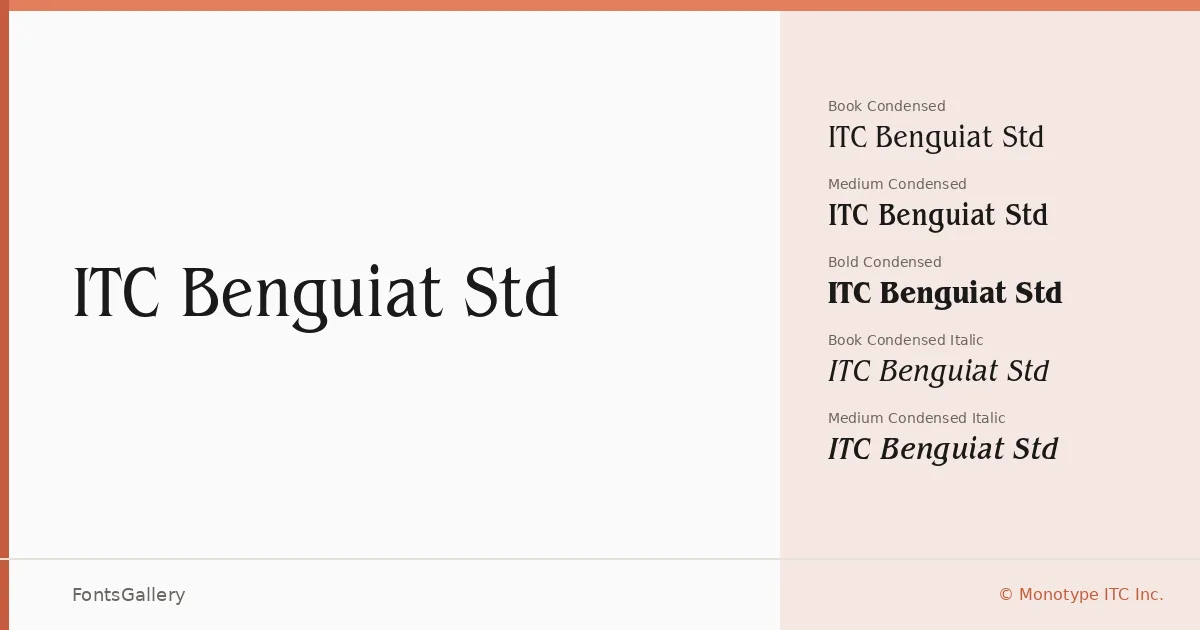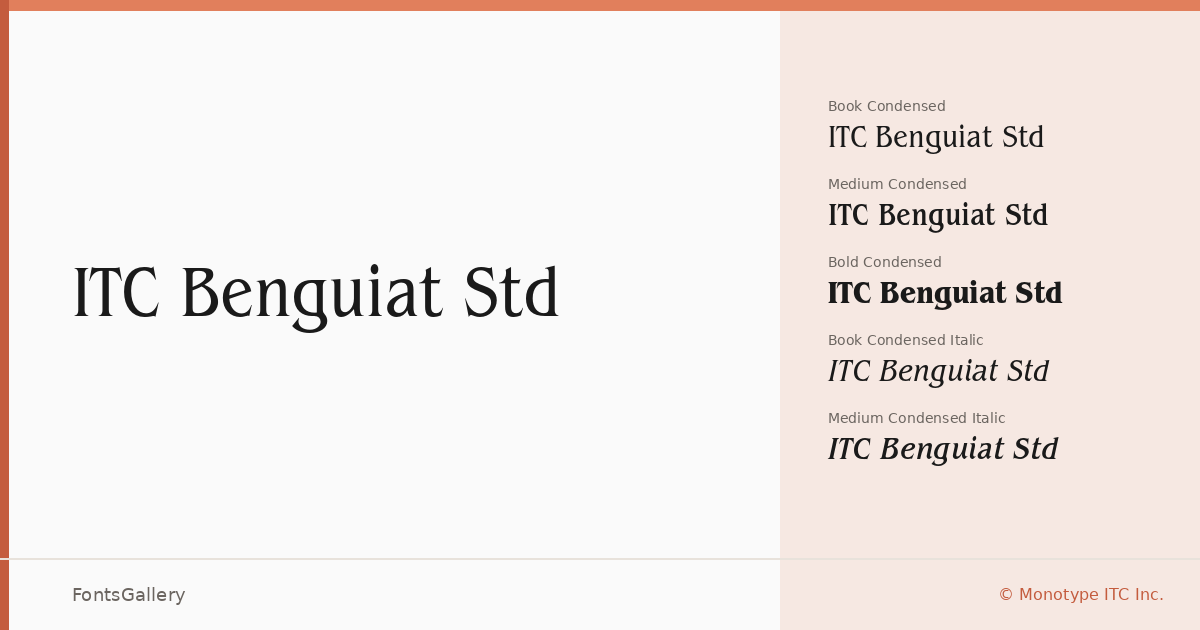
About ITC Benguiat Std Font
There is something unmistakably theatrical about the capitals here — the stress rides high, sitting in the upper half of each letter rather than at the optical center, which gives the forms a tension you feel before you consciously identify it. Edward Benguiat designed this roman face for ITC in the early 1980s, drawing deeply on Art Nouveau ornamental tradition to produce serifs that curve and swell with a decorative confidence rarely seen in display type of that era. Monotype ITC Inc. publishes the family, and the influence of that historical source material remains legible in every glyph.
The family is a condensed serif across all six cuts — Book Condensed, Book Condensed Italic, Medium Condensed, Medium Condensed Italic, Bold Condensed, and Bold Condensed Italic — delivered as OTF files. That condensed architecture makes the weight range feel especially useful in narrow columns or tight headline settings where a wider face would simply not fit. The mood runs toward the classic, elegant, and luxury end of the spectrum, with a vintage richness that owes as much to poster lettering as it does to book typography. Even the lightest Book Condensed weight carries real presence on the page.
The family earns its keep in headline and display contexts — book covers, magazine openers, branding lockups, and logo treatments where a touch of historic glamour is exactly what the brief is asking for. Latin coverage serves those markets well. For contrast pairings, the clean geometry of Helvetica or the neutrality of Asap makes a natural counterpoint to the ornamental warmth of these serifs, while Armelie, Etna, and Kactigona offer more expressive options when the project calls for a unified decorative register.